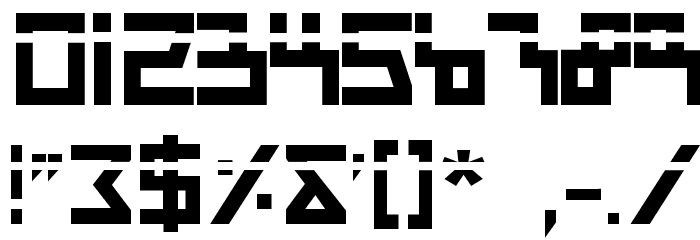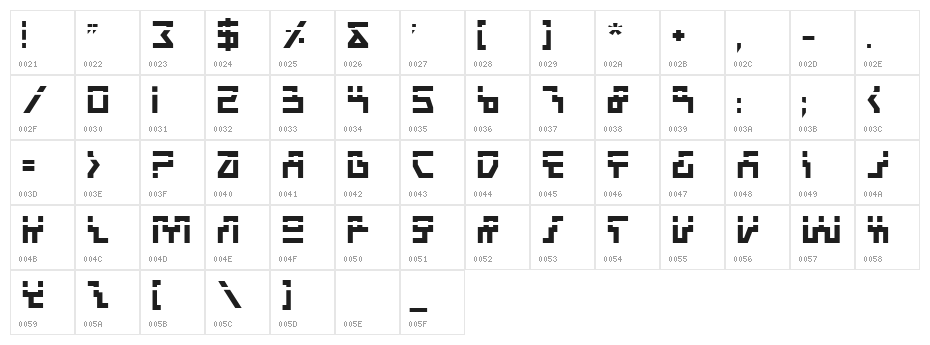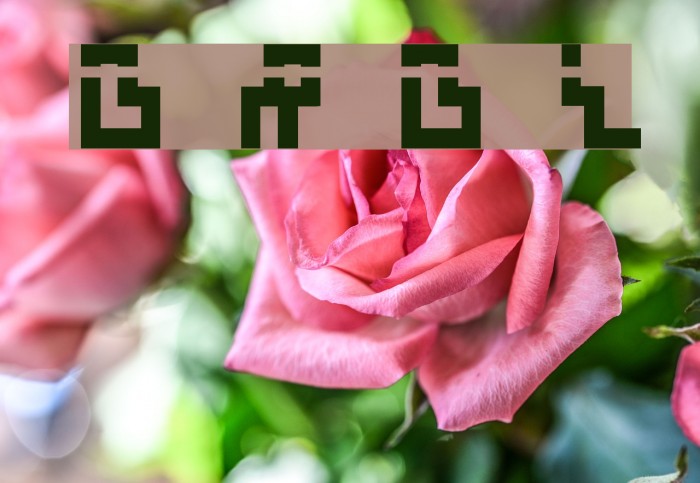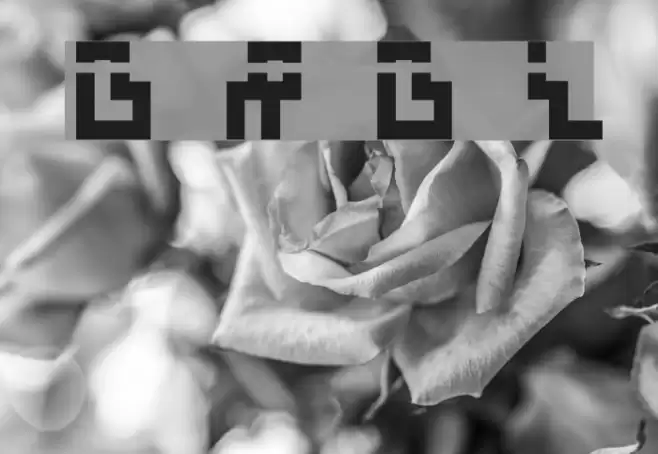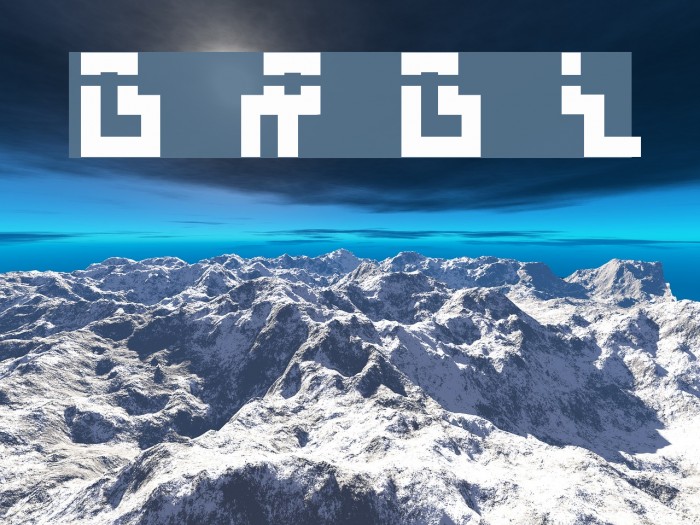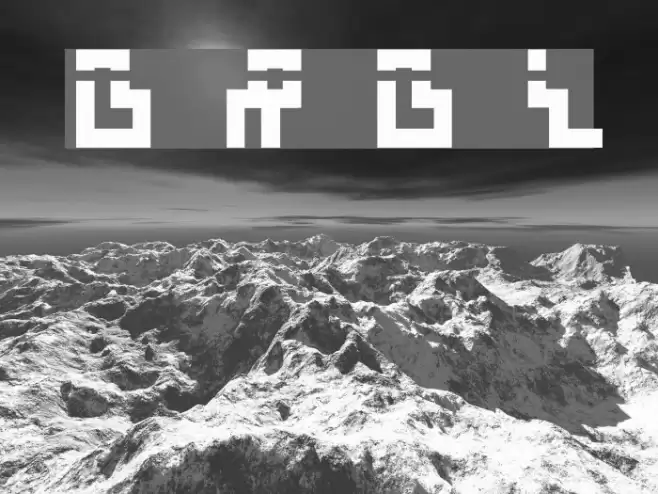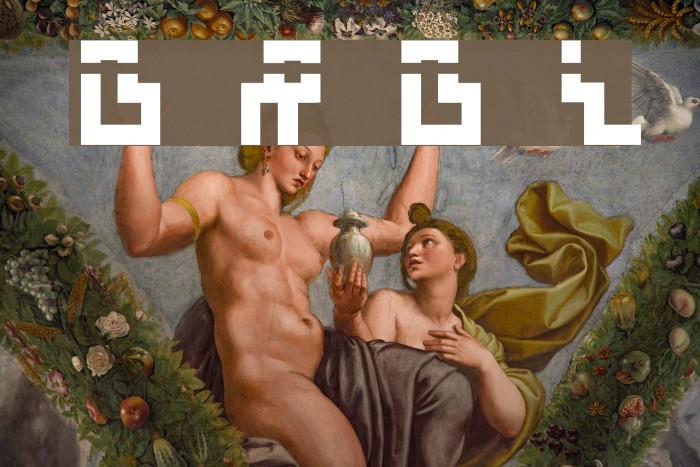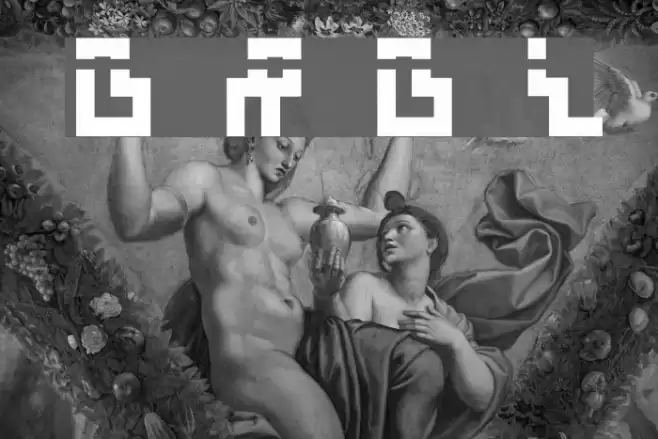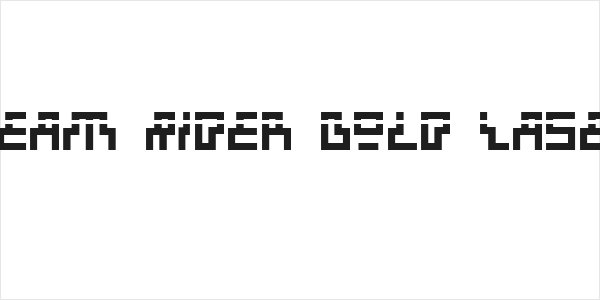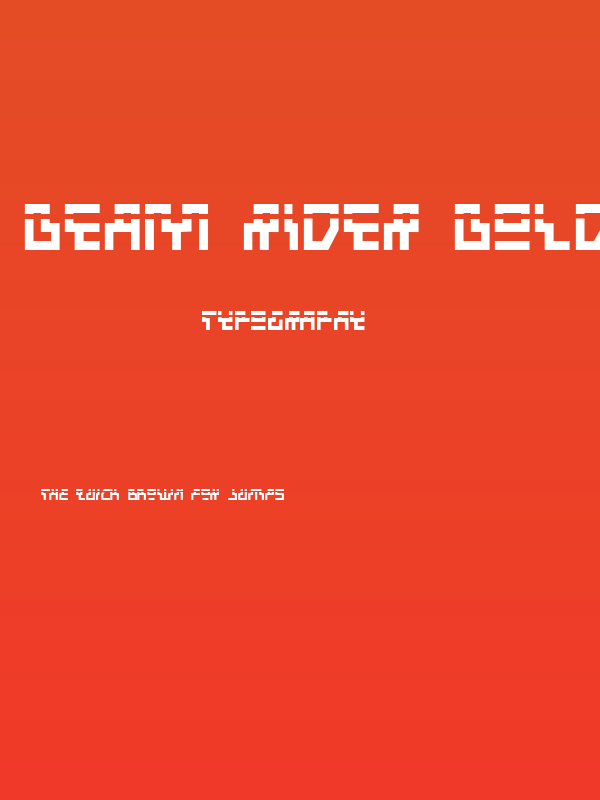
Beam Rider Bold Laser Font
Beam Rider Bold Laser Description
This font features a futuristic and geometric design, characterized by bold, blocky letters with sharp angles and a digital aesthetic. The uppercase and lowercase letters share a consistent style, emphasizing a uniform and cohesive look. The numbers and special characters maintain this angular and robust appearance, making the font ideal for projects that require a modern and tech-inspired feel. The solid, thick strokes provide a strong visual impact, suitable for attention-grabbing headlines or titles. Its unique style is reminiscent of retro-futuristic themes, often seen in sci-fi media or video game designs.